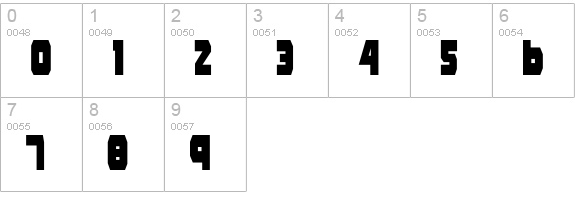
Rogue Hero Condensed is a distinctive, condensed-width variant in the Rogue typeface family \xE2\x80\x94 well suited to design and typography projects.
Rogue Hero Condensed font is a sleek and stylish typeface that exudes a sense of rebelliousness and adventure. With its sharp angles and edgy design, this font is perfect for projects that require a bold and daring look. The condensed style adds a sense of modernity and sophistication to any design. What makes Rogue Hero Condensed font even more appealing is that it is available for free download at FontsMarket.com. This means that you can add this eye-catching font to your collection without any cost, making it a valuable resource for all your design needs. Whether you're working on a poster, logo, or website, Rogue Hero Condensed font will help you make a bold statement that stands out from the crowd.